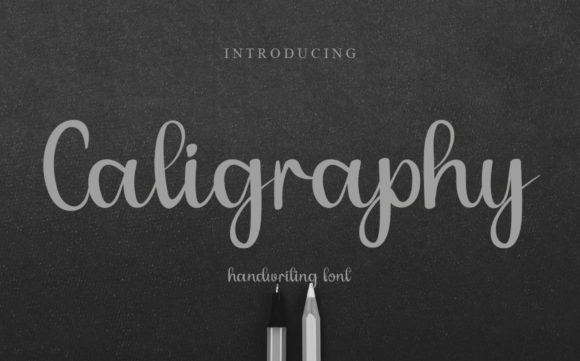
The Beauty of Caligraphy Font: Elevate Your Designs with Elegance
I’ll never forget the time I was working on a wedding invitation project, and my client asked for a font that would make the invitation look luxurious and sophisticated. I scoured the internet, tried out countless fonts, but nothing seemed quite right. That was until I stumbled upon Caligraphy Font. ✨ It was like a breath of fresh air – beautiful, flowing, and effortlessly elegant. In this article, I’ll share with you why I’m obsessed with Caligraphy Font and how you can use it to take your designs to the next level.
An Honest Review of Caligraphy Font
• ✨ Beautiful, flowing script that’s perfect for making a statement
• ✅ Highly versatile and can be used for a wide range of projects, from wedding invitations to product packaging
• ✅ Easy to read and understand, even in smaller sizes
• ✅ Supports OpenType features, glyphs, and stylistic alternates, giving you plenty of creative freedom
While Caligraphy Font is an amazing font, there are a few things to keep in mind: ⚠️
• 🤔 May not be the best choice for body text, as it can be a bit too ornate for long blocks of text
• ⚠️ Some characters may not work well in very small sizes, so it’s best to use it for headlines or titles
The Backstory of Caligraphy Font
Caligraphy Font was inspired by the art of traditional calligraphy. Its creator, a talented typographer, wanted to capture the elegance and sophistication of hand-written scripts in a digital font. 💻 The result is a font that’s both beautiful and functional – perfect for a wide range of design projects.
Font Name Caligraphy Font
Author Garcio
Q: What is Caligraphy Font best used for?
A: Caligraphy Font is perfect for projects that require elegant, sophisticated typography, such as wedding invitations, wall displays, social media post logos, and product packaging.
Q: Is Caligraphy Font easy to read?
A: Yes, Caligraphy Font is generally easy to read, even in smaller sizes. However, it’s best used for headlines or titles rather than body text.